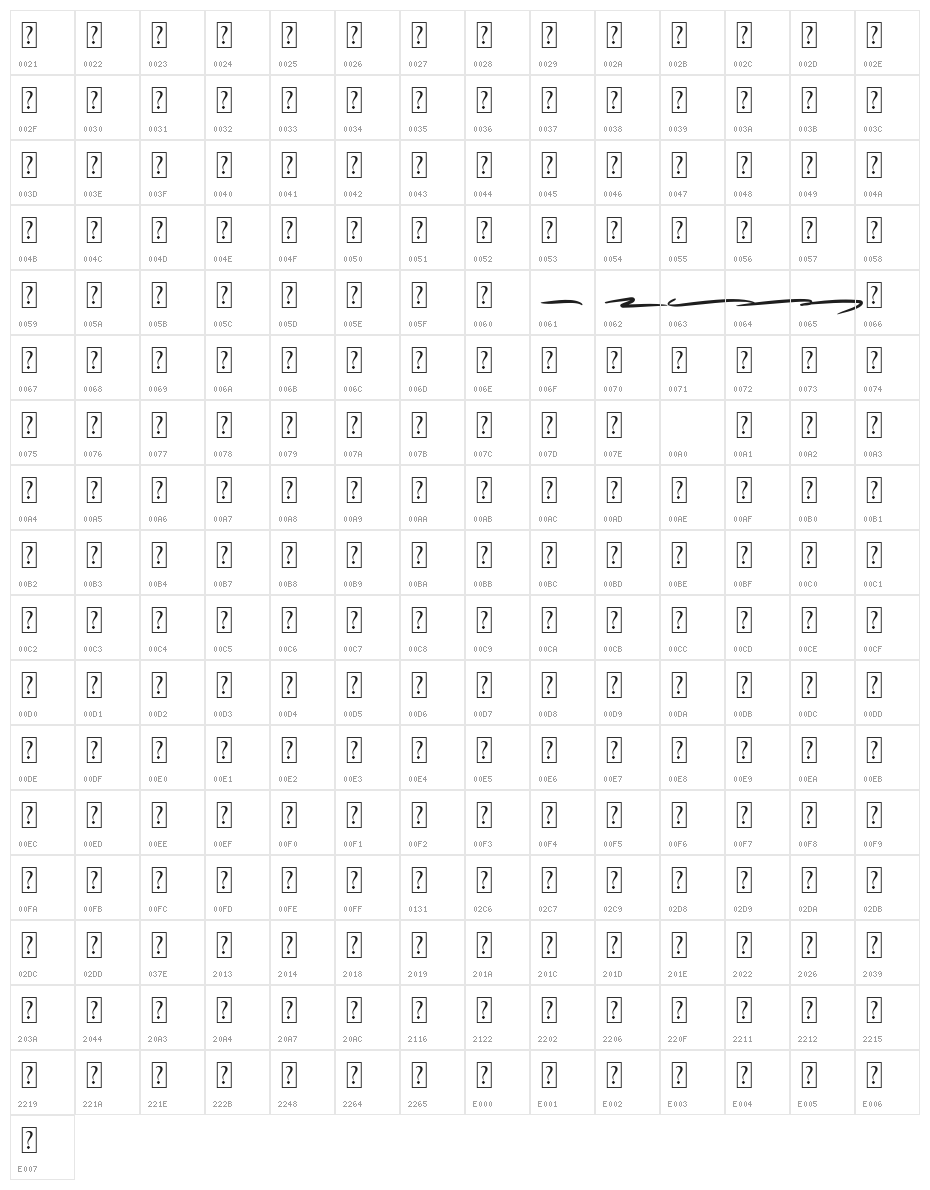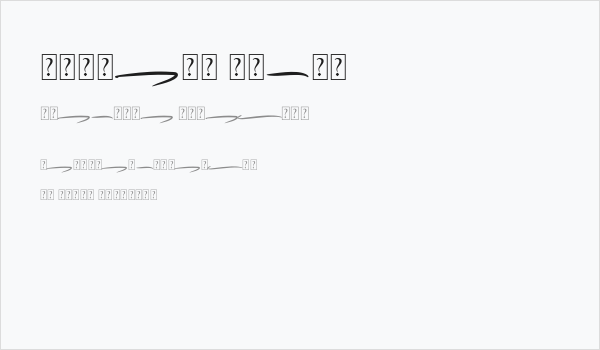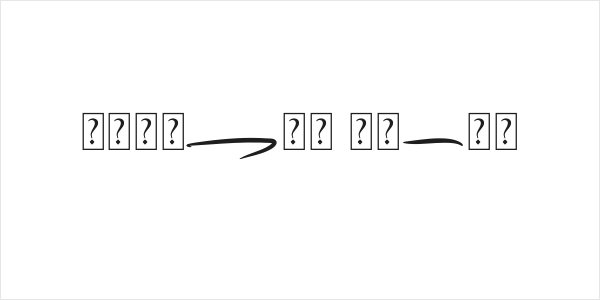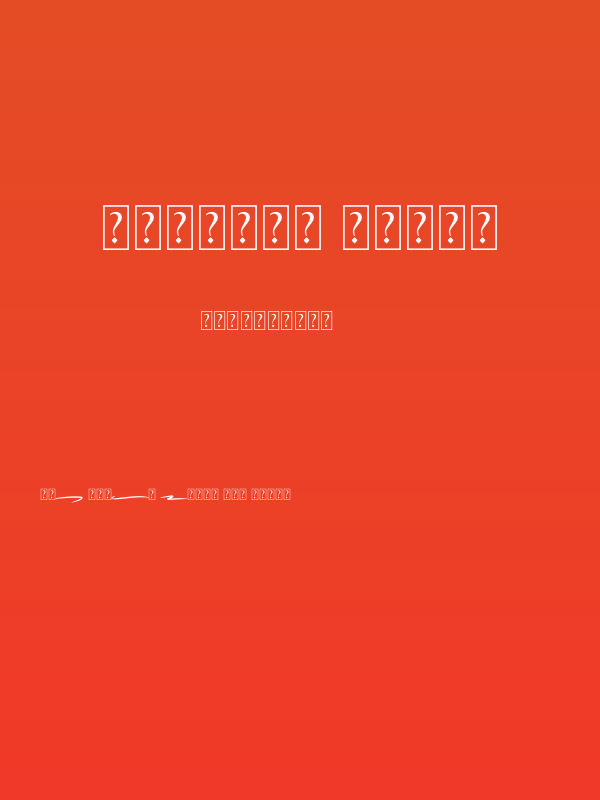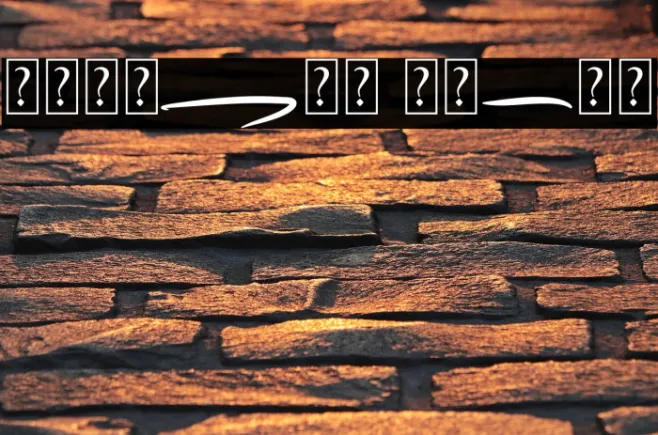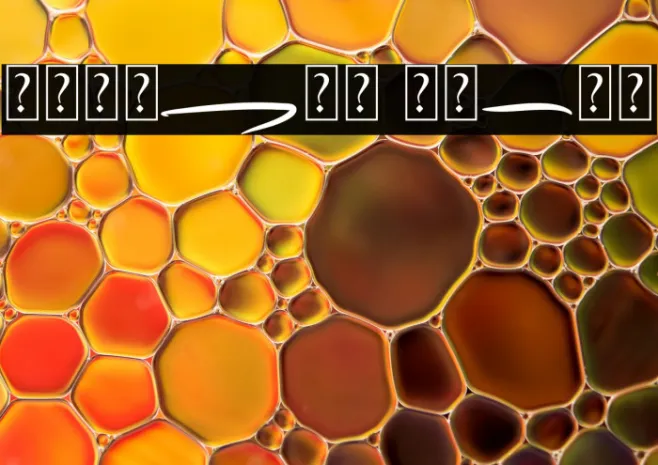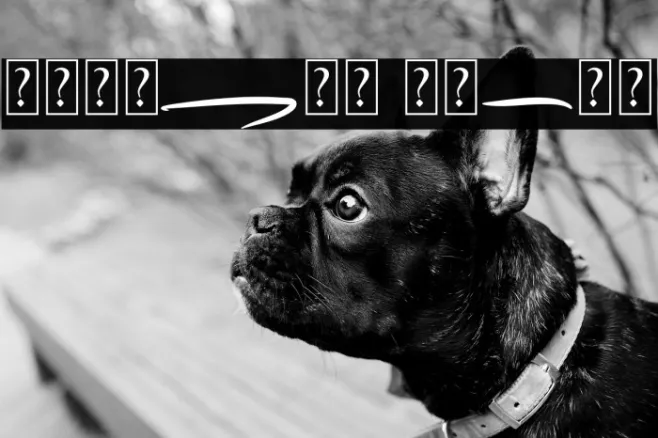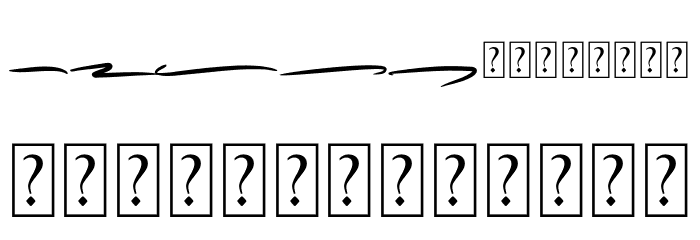
Forsegi Swash Font
Forsegi Swash Description
This font is a decorative and artistic typeface characterized by its elegant swashes and flourishes. The letters are designed with intricate curves and extended strokes, giving it a sophisticated and ornamental appearance. The style is reminiscent of calligraphy, with a flowing and graceful aesthetic that adds a touch of elegance to any design. The font's unique features make it stand out, making it ideal for projects that require a touch of class and creativity. Its artistic nature makes it suitable for various design applications where a decorative and stylish look is desired.
| Use Case | Logos, Invitations, Decorative headings |
| Proposed Projects | Ideal for wedding invitations, greeting cards, branding, and luxury product packaging. |